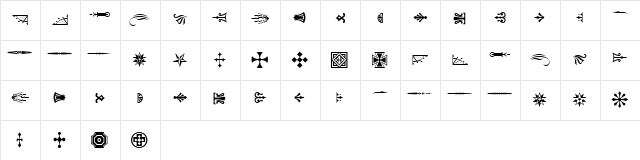
Adobe Wood Type Medium
Design Context for Adobe Wood Type Typeface
Adobe Wood Type taps into classic Western woodtype traditions — bold, characterful, and impossible to ignore.
Perfect for barbecue restaurants, country music branding, vintage poster design, and rustic packaging.
Font Pairing: Combine Adobe Wood Type with a simple slab or neutral sans — period-accurate companions reinforce the vintage feel without competing for attention.
Pro Tip: Pair Adobe Wood Type with aged textures or distressed backgrounds to amplify its vintage personality.